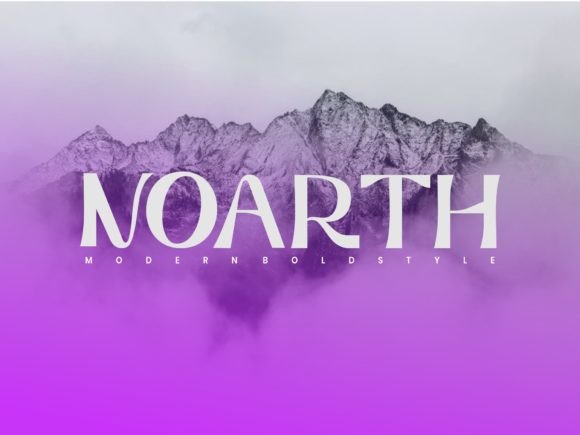
**Introducing Noarth: The Ultimate Display Font for Unleashing Your Creative Spirit**
In the realm of digital artistry, where words take flight and imagination knows no bounds, there exists a font that captivates and compels, leaving an indelible mark on the hearts and minds of its readers. Allow us to unveil Noarth, a display font that transcends the ordinary, propelling your creative endeavors to dizzying heights.
**A Bold and Unforgettable Presence**
Noarth is not merely a collection of letters; it's a symphony of strokes, a dance of lines, a visual masterpiece that commands attention and leaves a lasting impression. Its bold strokes exude strength and confidence, while its carefully crafted curves lend an air of elegance and sophistication. With Noarth, your words will leap off the screen, capturing the hearts and minds of your audience.
**A Versatile Chameleon, Adapting to Your Every Need**
Noarth is not confined to a single genre or style; it's a versatile chameleon that effortlessly adapts to a myriad of creative projects. Whether you're crafting eye-catching logos, designing captivating posters, or weaving enchanting stories through digital art, Noarth seamlessly blends with your vision, becoming an integral part of your creative tapestry.
**A Font Rooted in Passion and Expertise**
Behind the creation of Noarth lies a team of passionate designers, each contributing their unique talents and expertise to bring this remarkable font to life. Countless hours were spent meticulously crafting each letterform, ensuring that every curve, every angle, and every stroke exudes perfection. The result is a font that is both visually stunning and functionally versatile - a true testament to the power of collaboration and dedication.
**Experience the Noarth Difference**
With Noarth by your side, you'll embark on a creative journey like never before. Your designs will radiate with newfound energy, your words will carry more weight, and your ideas will take on a life of their own. Join the ranks of countless artists, designers, and creatives who have embraced the transformative power of Noarth and witnessed their creative visions soar to unprecedented heights.